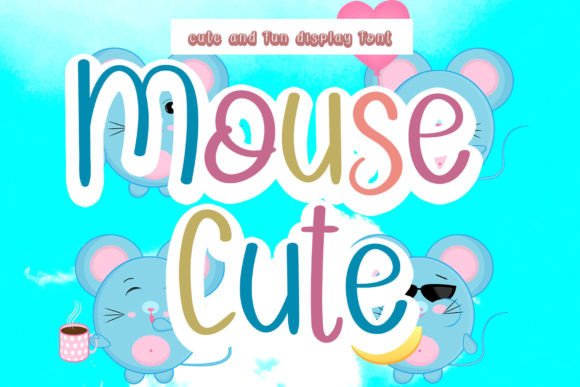
**Introduce the Mouse Cute Font with Allure and Charm**
In a world of digital designs, let your imagination dance with the Mouse Cute Font, a delightful script font crafted with love by pinkmeca. This extraordinary font exudes charm and playfulness, whispering a story of individuality and joy. As you embrace Mouse Cute, prepare to embark on a creative adventure, where your designs blossom with a touch of whimsy and uniqueness.
**Unleash the Magic of Mouse Cute: A Font for All Occasions**
With its irregular and playful letterforms, Mouse Cute captivates the eye, inviting you to explore a world of creative possibilities. It's the perfect font for adding a personal touch to wedding menus, invitations, and greeting cards. Its charming handwritten style transforms ordinary words into heartfelt messages, creating designs that resonate with warmth and authenticity.
**Discover the Versatility of Mouse Cute: A Multifaceted Masterpiece**
The Mouse Cute Font isn't just limited to the world of weddings; it's a versatile chameleon, adapting seamlessly to a myriad of design projects. Whether you're crafting eye-catching social media posts, designing captivating brochures, or creating personalized logos, Mouse Cute rises to the occasion, adding a touch of enchantment to every endeavor.
**Elevate Your Designs with Mouse Cute: The Key to Creative Liberation**
As you surrender to the allure of Mouse Cute, prepare to witness your designs transform before your eyes. This remarkable font unlocks a new realm of creativity, empowering you to express your unique vision with confidence. Say goodbye to mundane designs and embrace the extraordinary with Mouse Cute, the font that sets your imagination free.
**Embrace the Beauty of Mouse Cute: A Symphony of Aesthetics**
The Mouse Cute Font isn't just a tool; it's a work of art. Each letter, meticulously crafted, dances across the page like a delicate ballet. Its natural, handwritten style evokes a sense of nostalgia, reminding us of the beauty of handwritten notes and the warmth of personal correspondence. With Mouse Cute, your designs transcend the ordinary, becoming cherished keepsakes that resonate with emotion and elegance.